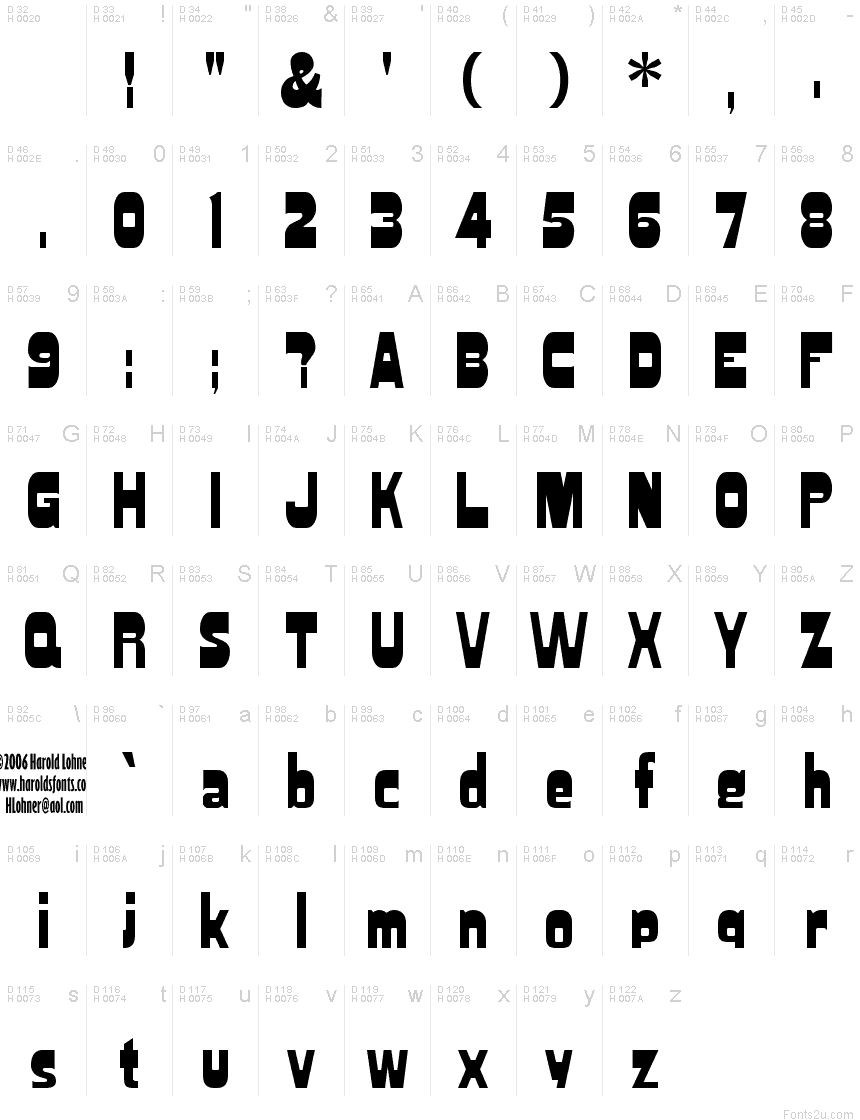
Blacktop
Blacktop font by Harold Lohner is a free retro bold display typeface that feels straight out of a graffiti-covered city block. Thick, squared shapes with shaved-off corners and chunky counters give it a rugged, painted-on look, while the tight rhythm keeps words feeling solid and unified, like lettering rolled across concrete with a stencil and a fat marker.
Using Blacktop, you can push attitude into streetwear logos, skate or BMX branding, music posters, nightclub flyers, sports titles, and bold website headers. This free font really shines at large sizes where its blocky weight and urban character can breathe; pair it with a clean geometric sans for body copy to keep layouts strong but readable.